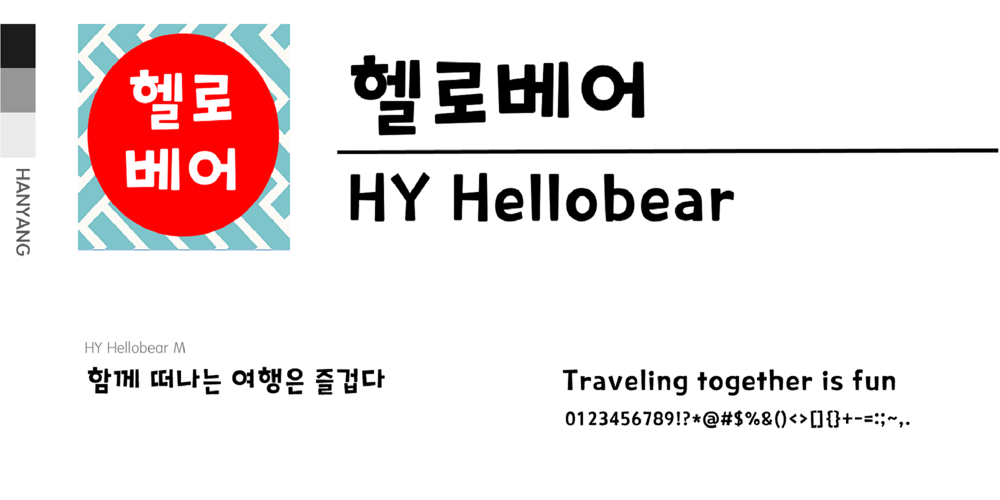
HY Hellobear Font Family was designed by font hy and published by HY Font. HY Hellobear contains 1 styles and family package options. It is a font that feels cute while being rough and concise. It can be used sensuously in video subtitles, illustrations, and PowerPoint.